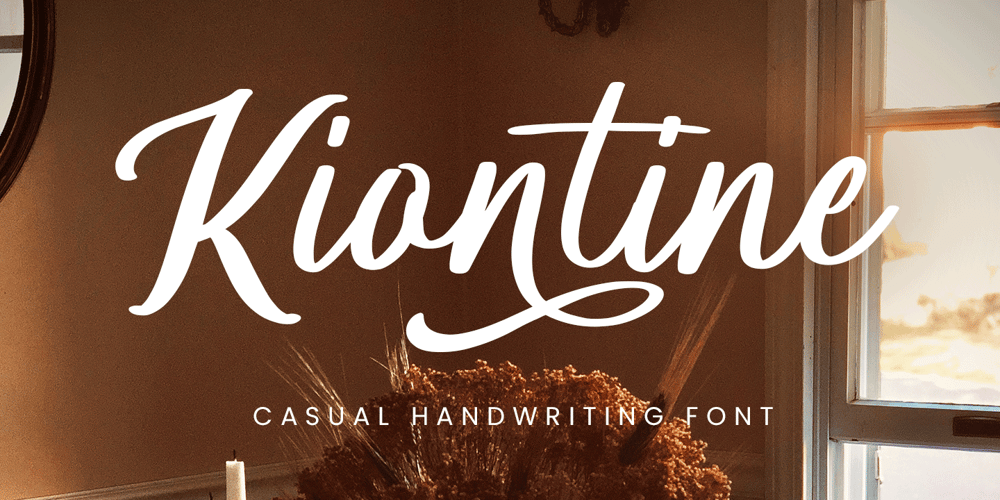
Kiontine
Kiontine font
Kiontine Font Family was designed by Novitasari Romli and published by Novitype. Kiontine contains 1 styles and family package options. Kontine is a joyful handwritten font. Designed in natural handwriting with a digital brush, minimalist thickness enhances the romantic and feminine vibes.Create your own typographic design with this beautiful font that is complete with special characters, and ligatures that you can mix and match to enhance your design. Perfect choice to be used on logos, quotes, books, flyer, wedding, cards, label, tagline, and more.What you’ll get : Uppercase Lowercase Numbers Symbols Punctuation Stylistic alternates Ligatures Multilingual support